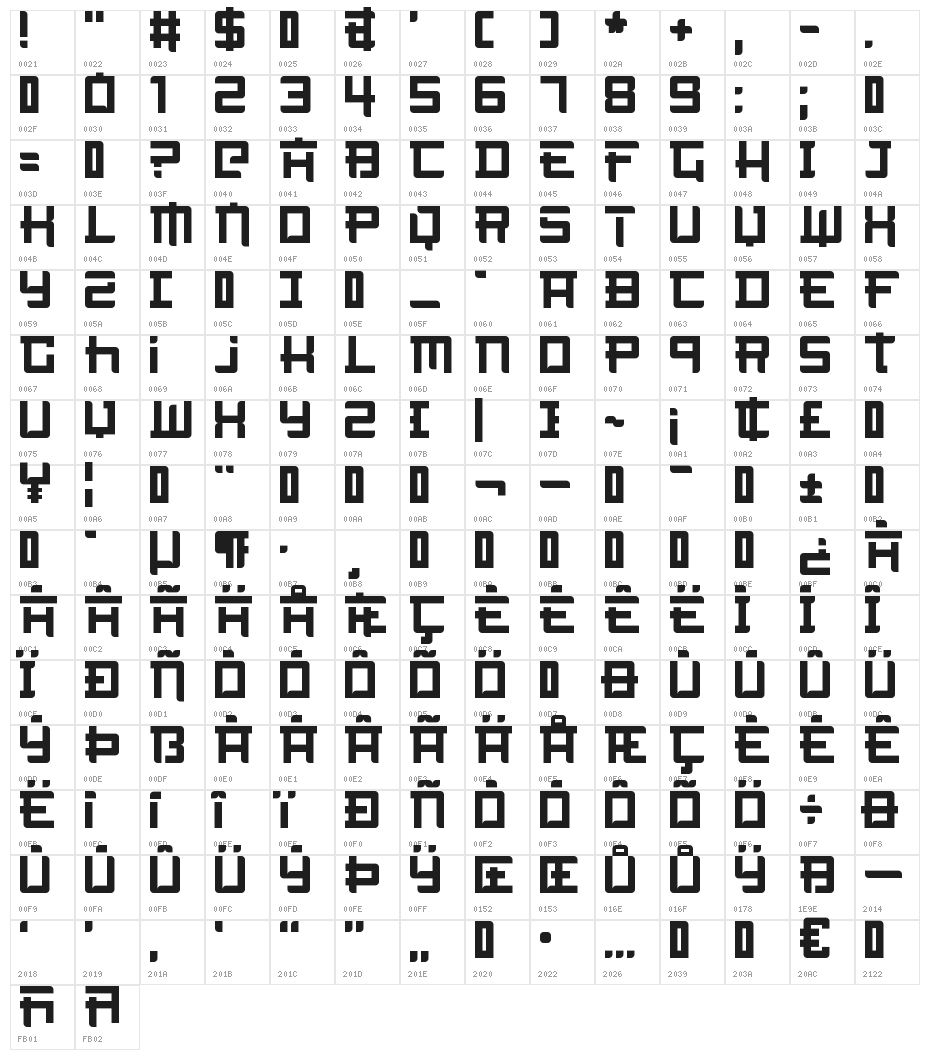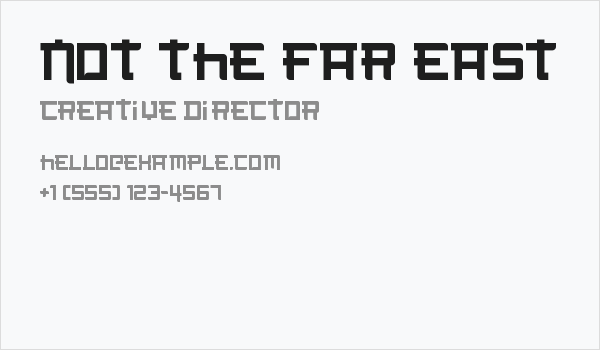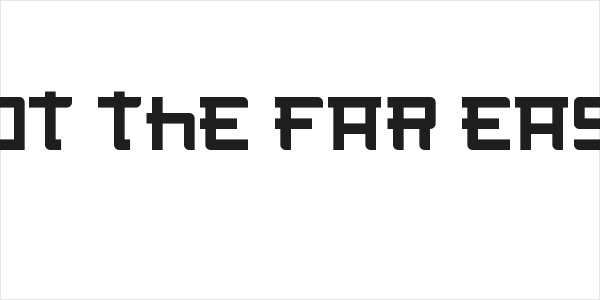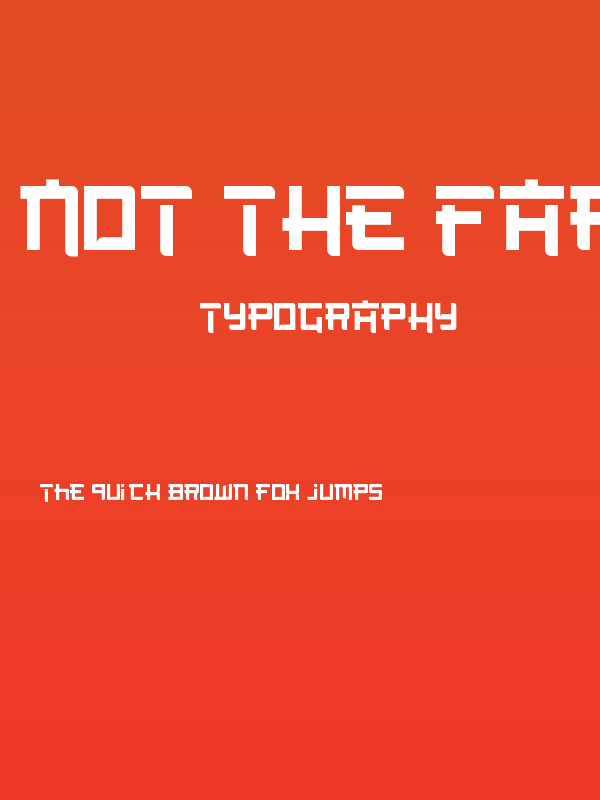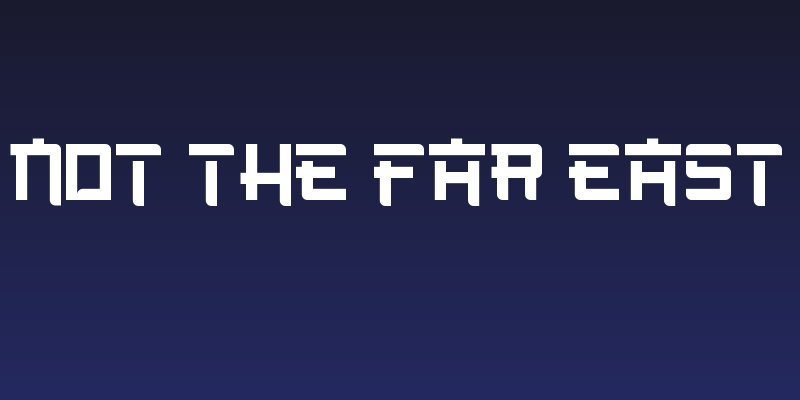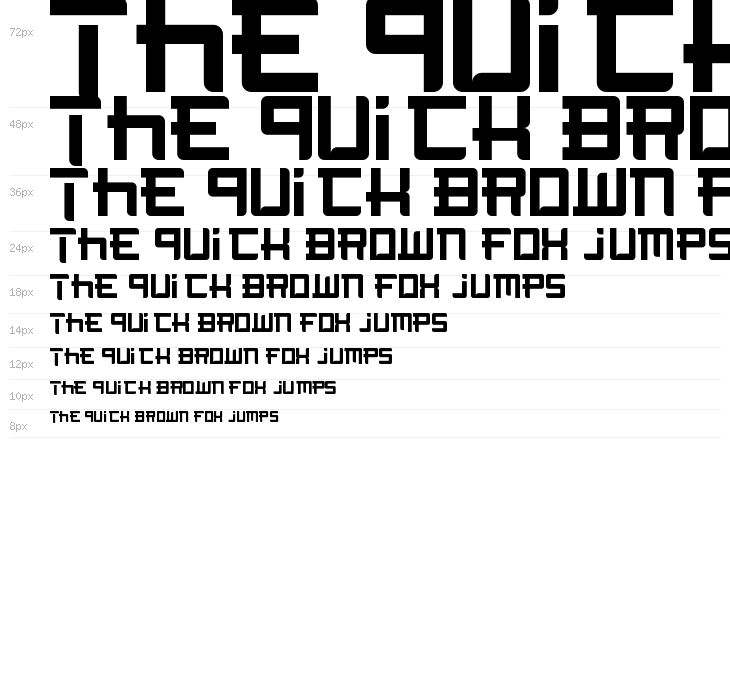
Not the far east Font
Not the far east Description
This font features a bold, geometric design with a distinctly modern and futuristic aesthetic. The characters are constructed with thick, uniform strokes that create a strong visual impact. The angular shapes and sharp corners give it a mechanical feel, reminiscent of digital or technological themes. The uppercase and lowercase letters maintain a consistent style, with the lowercase being slightly smaller but equally bold. The numerals and special characters follow the same design principles, ensuring uniformity across all glyphs. This font is highly legible and commands attention, making it suitable for various creative applications.
| Proposed Projects | Ideal for technology branding, video game titles, sci-fi posters, and digital interfaces. |